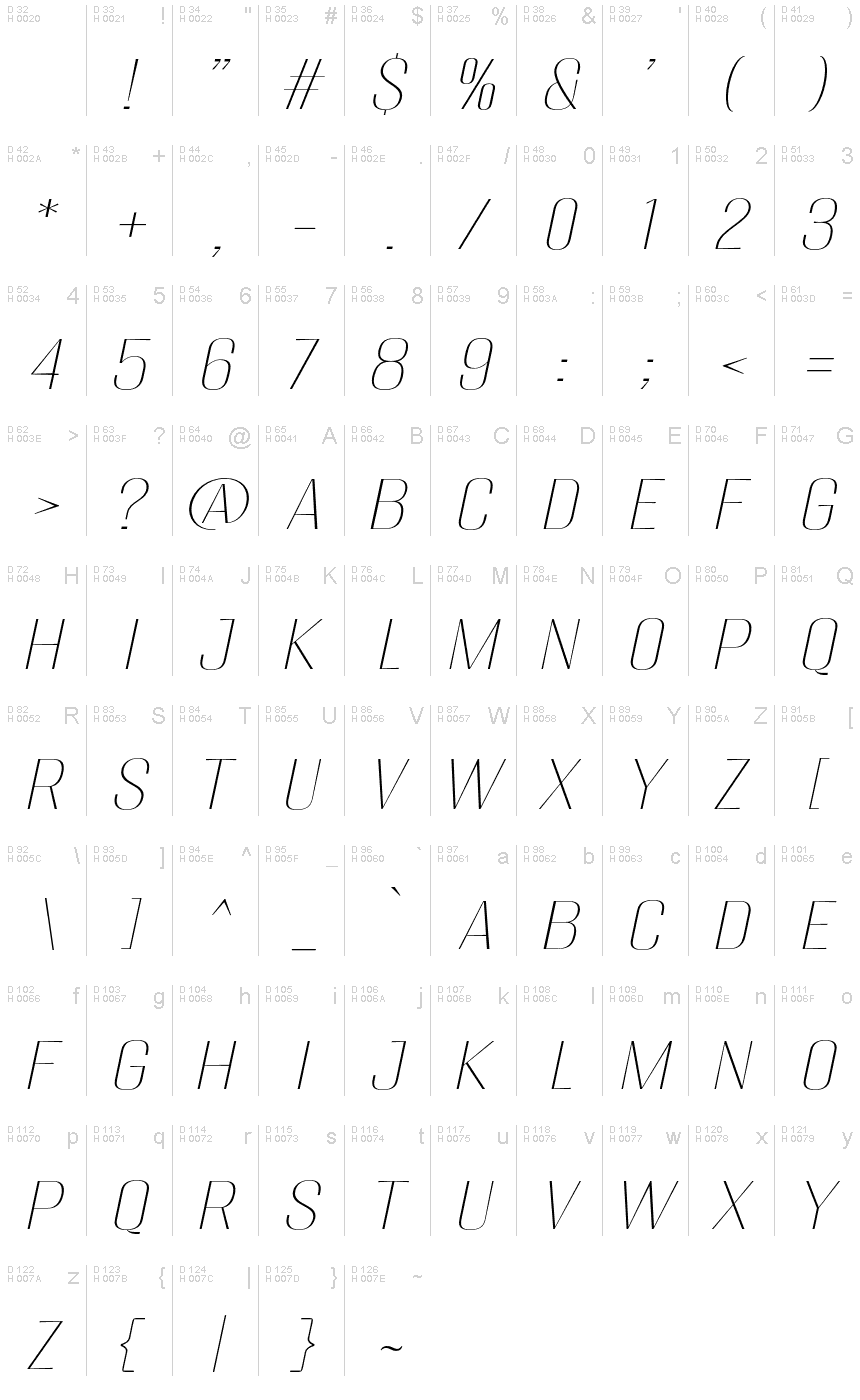
Migha-ThinSemiExpandedSlant
Migha Thin SemiExpanded Slant is a sleek and modern sans-serif font designed by Seniors Studio. With its extra-light weight and semi-condensed width, this font is perfect for creating clean and minimalistic designs that demand attention. The slanted italic style adds a touch of elegance to any project, making it suitable for a range of uses from fashion branding to tech startups. Use Migha Thin SemiExpanded Slant to create stunning logos, website headers or social media graphics that are guaranteed to leave a lasting impression. Its versatility makes it ideal for both print and digital applications.